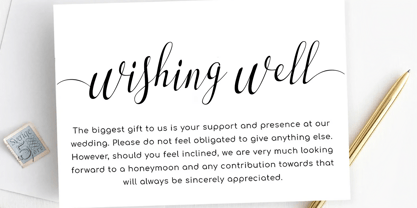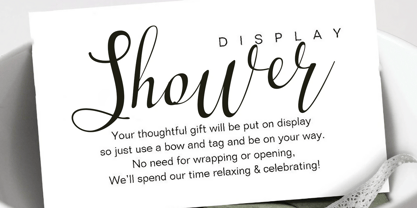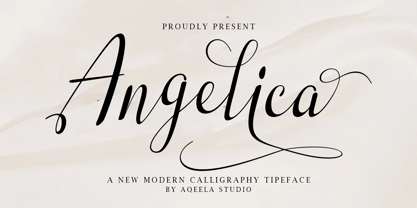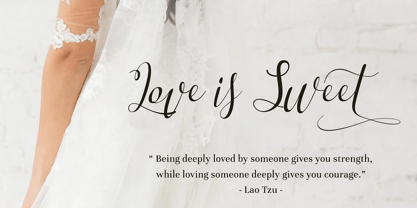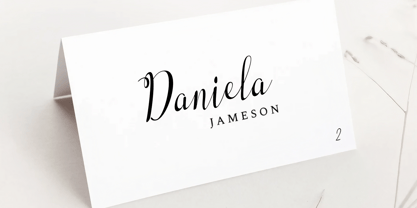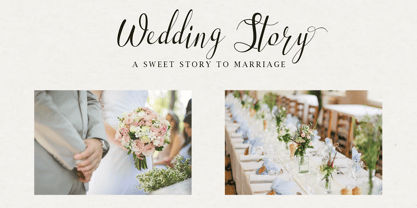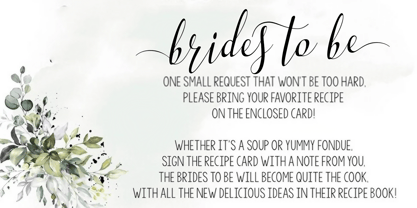
Angelica Script
von Aqeela Studio
Die Schriftfamilie Angelica Script wurde von Muhammad Nasir entworfen und von Aqeela Studio veröffentlicht. Angelica Script enthält 1 Stile.
The Angelica Script font is a captivating blend of elegance and personality, perfect for designs that demand a touch of sophistication with a modern twist. Its flowing, hand-drawn strokes exude a natural charm, making it ideal for wedding invitations, branding projects, and heartfelt quotes. The letters gracefully dance across the page, with an airy yet confident demeanor that captures the essence of handwritten authenticity. Whether you're aiming for timeless beauty or a chic contemporary vibe, Angelica Script's delicate curves and artistic flair will elevate your text into a visual masterpiece.